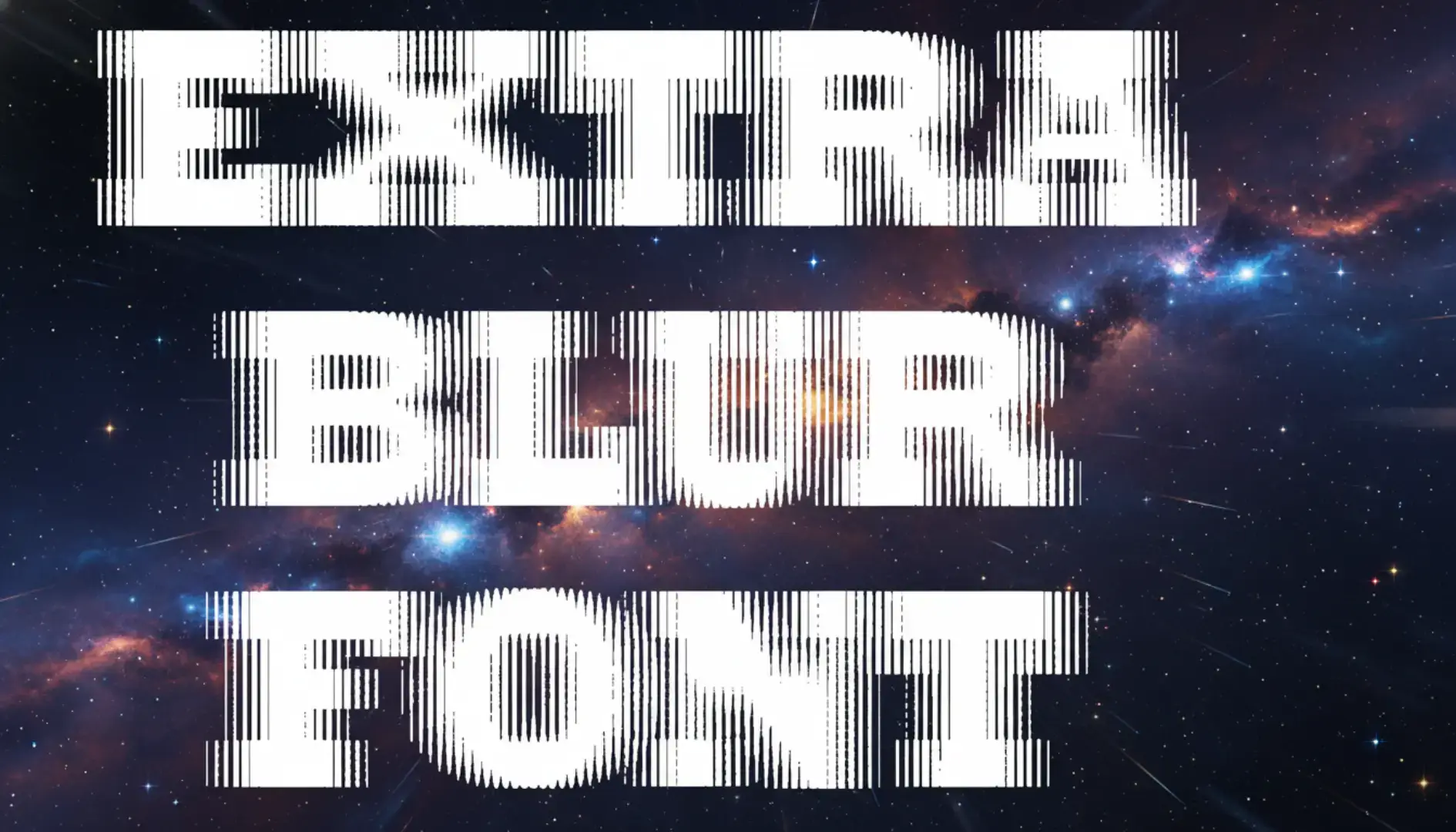
ExtraBlur Font
ExtraBlur
ExtraBlur is a fancy font created by Imagex. Bold and full of character, it's built to stand out rather than blend in. You can download it for free and test it with your own words in the preview above.
- Characters: A–Z, 0–9 and basic punctuation
What You Can Type With ExtraBlur
ExtraBlur is an all-caps font: it only has capital letters. Lowercase letters will show up in a different font or as empty boxes, so turn on Caps Lock when you type. All ten numbers are included. Everyday marks like &, !, ? and # are there too. There are no accented letters like é or ñ, so it's best kept to English text.
Where ExtraBlur Works Best
ExtraBlur is a natural fit for posters, logos and eye-catching headlines. Use it for one standout word or headline and let simpler fonts handle the rest.
Does ExtraBlur support accented letters?
No. ExtraBlur has no accented letters such as é, ñ or ü, so it's best for English text.